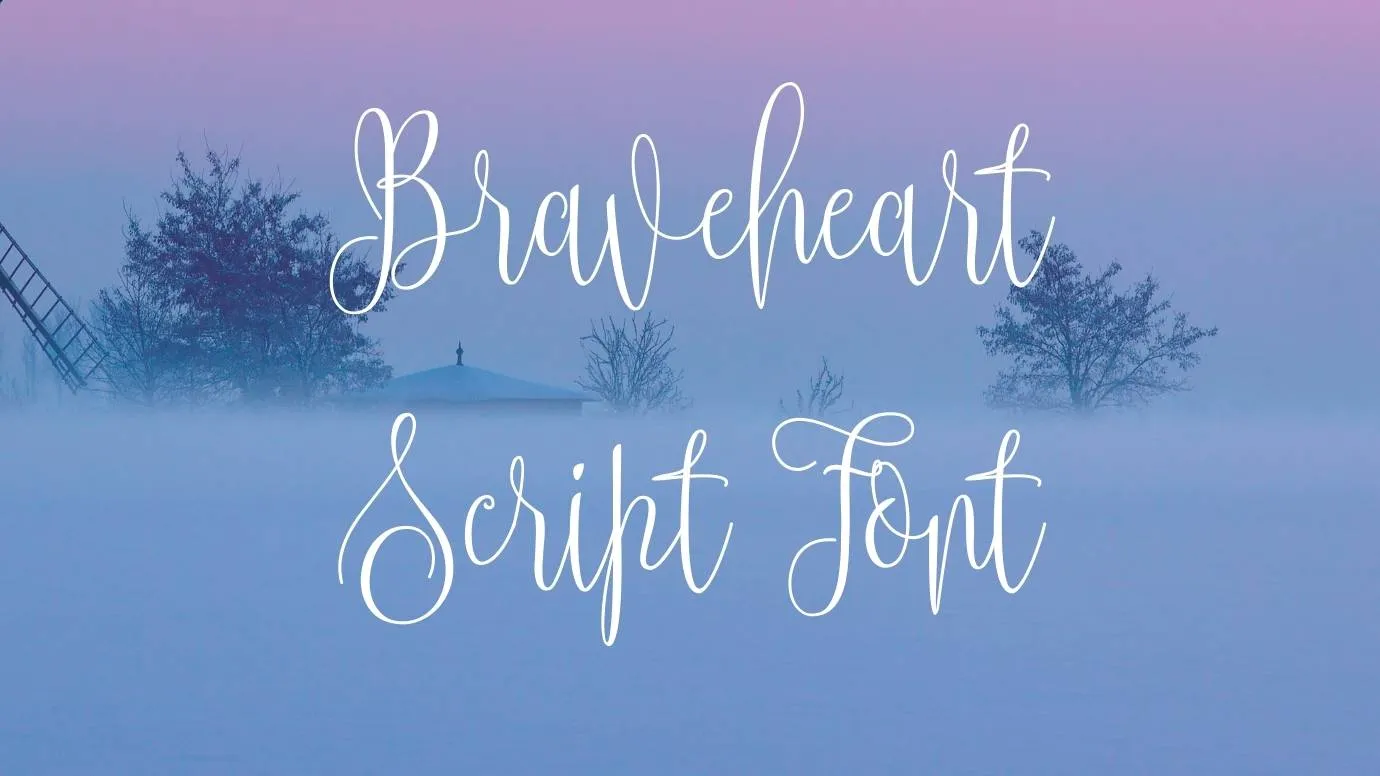
Braveheart Script Font Family was established by a very intelligent and brilliant designer named Artisans. This attractive typeface belongs to the modern calligraphy category.  It was released on the first in December 2017.
This typeface has more than 231 special characters that are suitable for designing purposes. You can make pair this font with other calligraphy typefaces like Welcome Font.